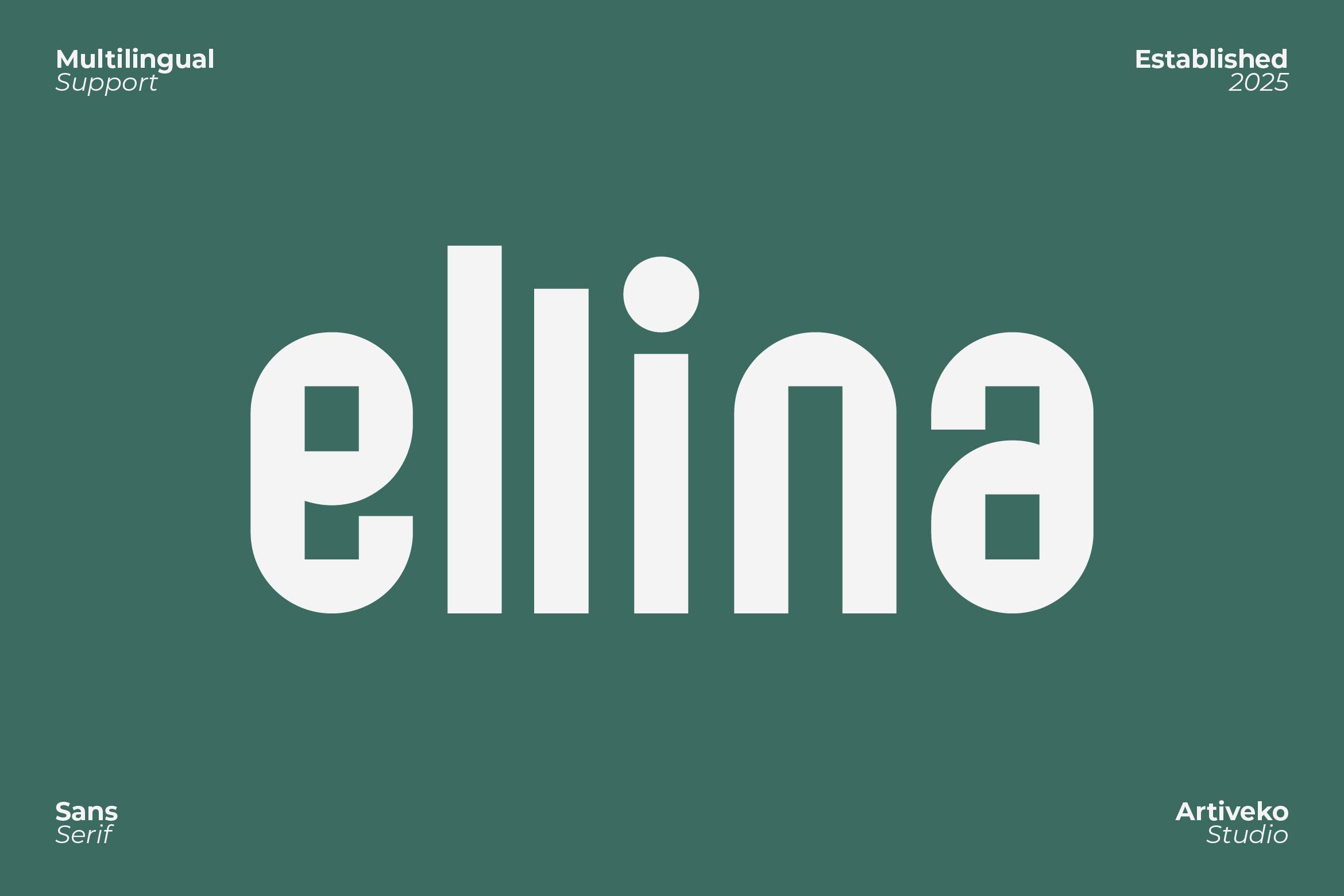
- Ellina Creative Modern Sans Font
Ellina is a refined and contemporary sans serif font designed to bring simplicity and sophistication to your typography. Featuring smooth curves, clean lines, and balanced proportions, Ellina delivers a timeless modern look that works beautifully for branding, editorial layouts, web design, packaging, and social media graphics.
Its versatile and minimalist aesthetic ensures excellent readability in both large headlines and small text, making it suitable for a wide range of creative projects across fashion, tech, lifestyle, and corporate industries.
The font includes uppercase and lowercase letters, numerals, punctuation, multilingual support, and stylistic alternates for enhanced design flexibility.
Bring modern elegance to your designs with Ellina — the sans serif font that combines clarity, style, and contemporary precision.